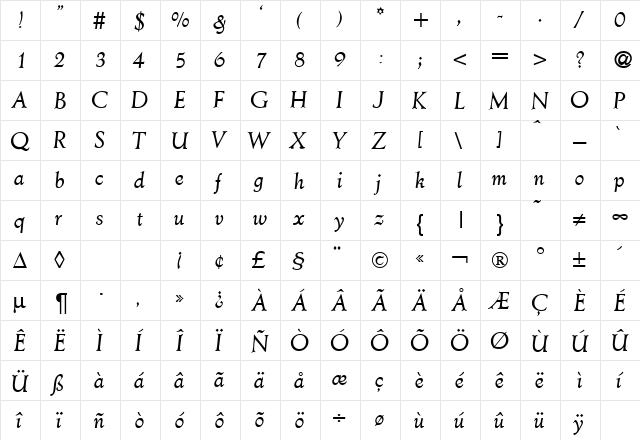
Aesop RegularItalic
Design Context for Aesop Typeface
Aesop offers clean, dependable letterforms without strong stylistic allegiance, making it a practical choice for designers who need flexibility. Its italic angle brings a sense of urgency and motion to the letterforms.
Pro Tip: Use Aesop for emphasis, pull quotes, and subheadings where its slanted energy can add rhythm to the layout.